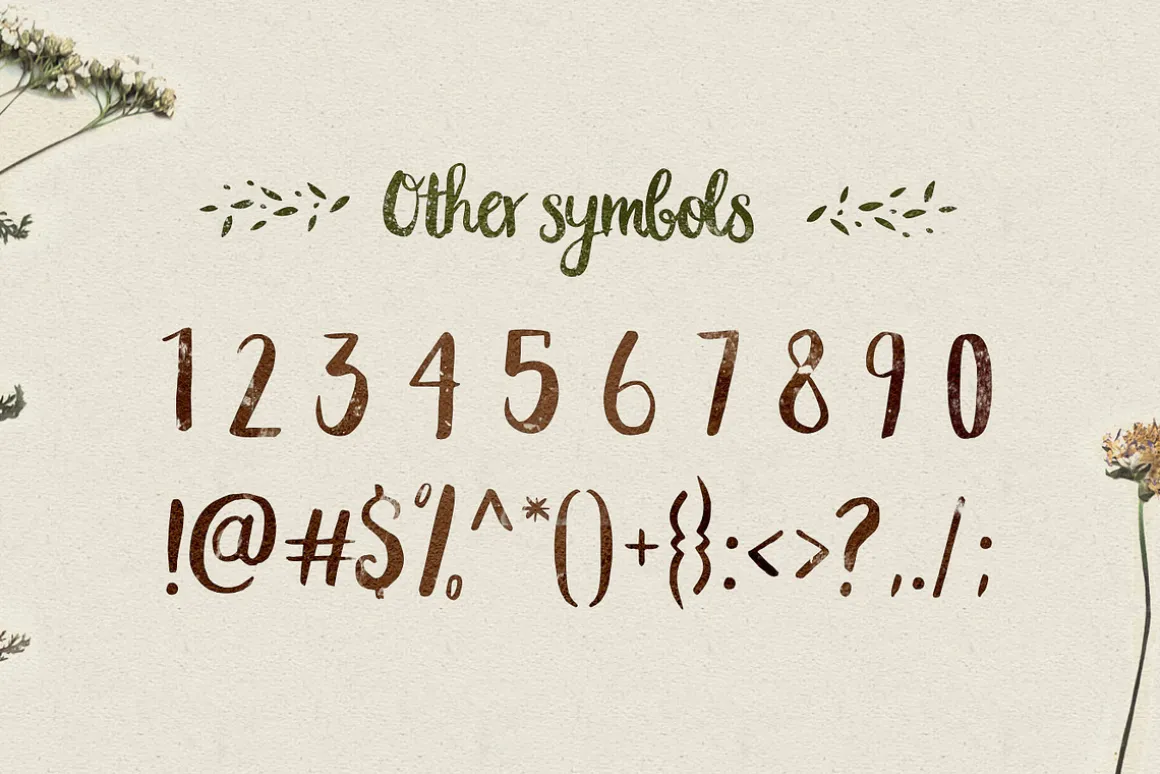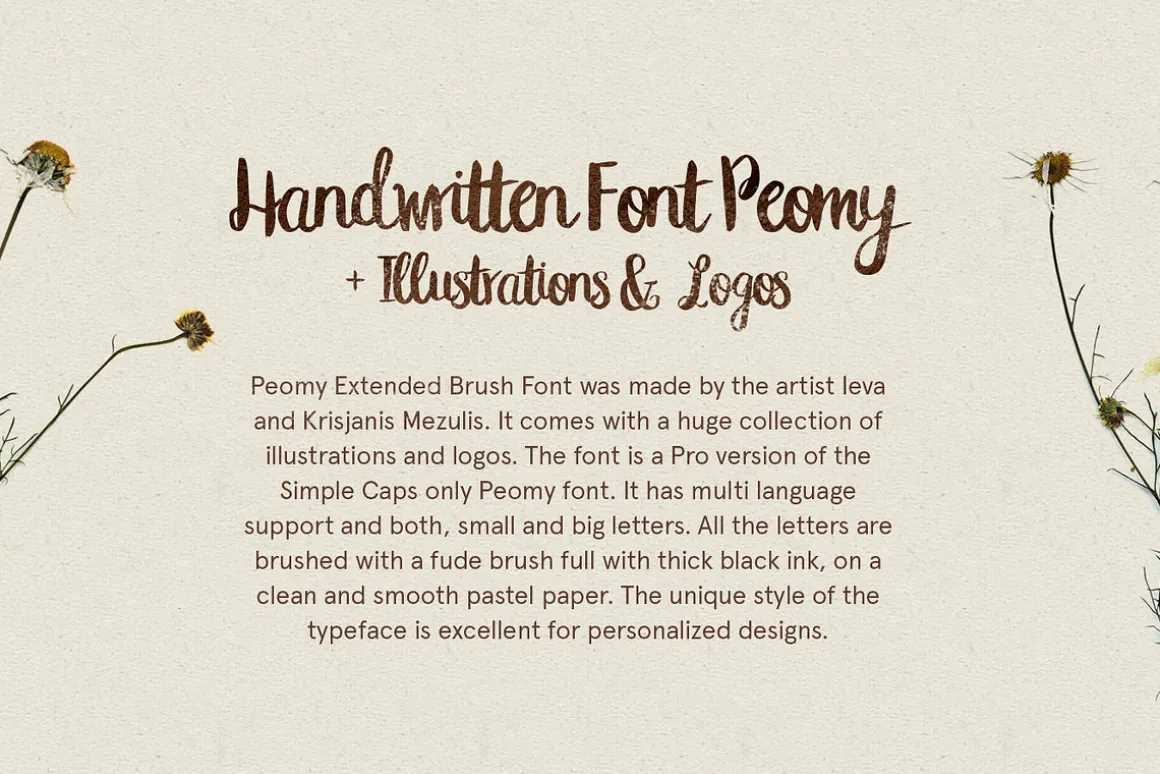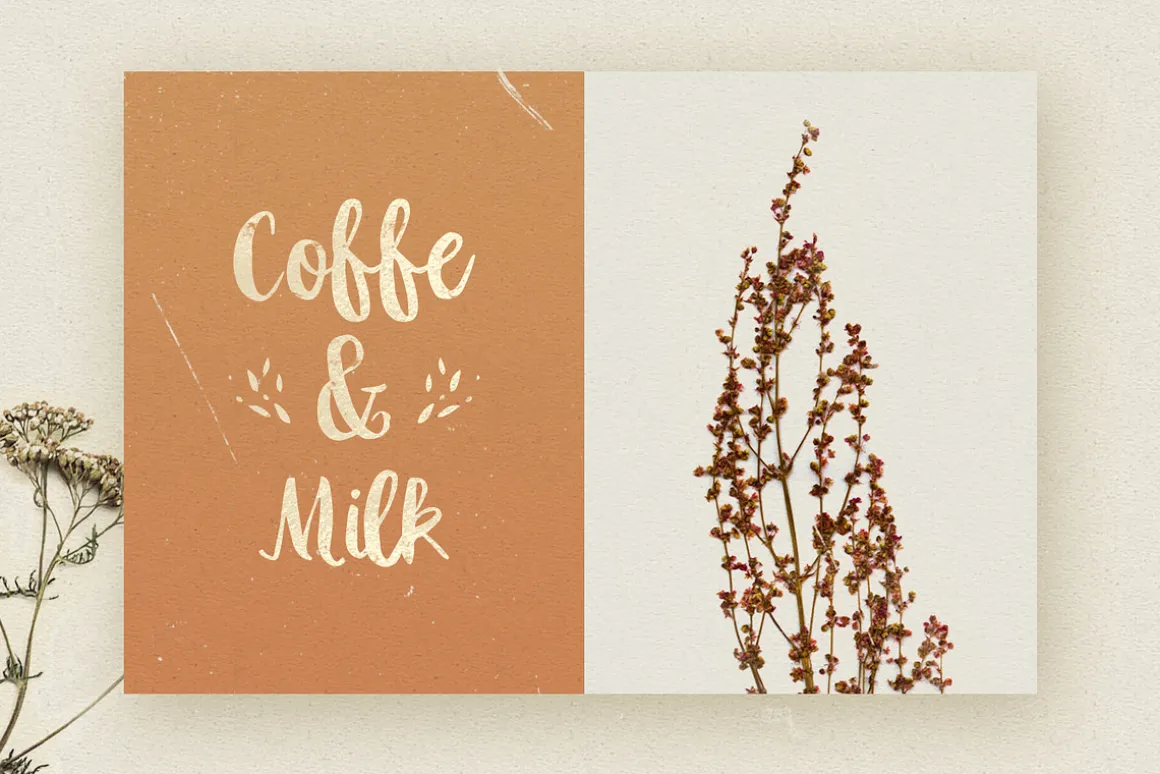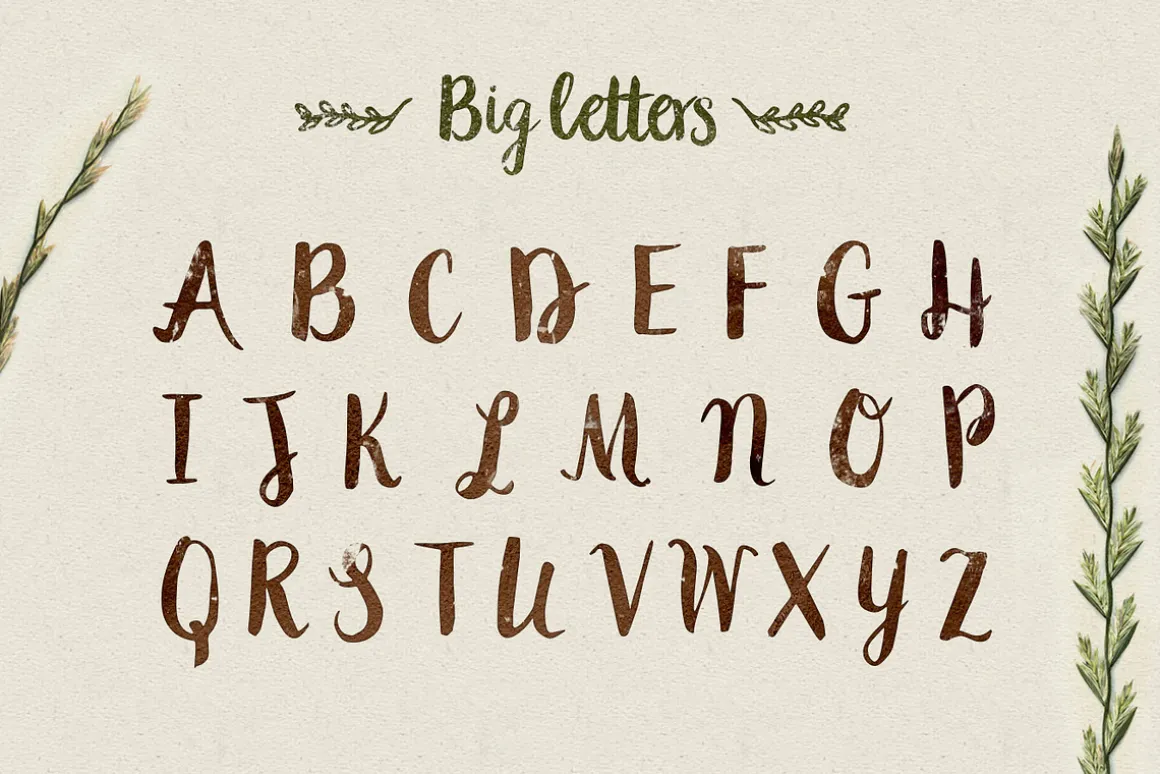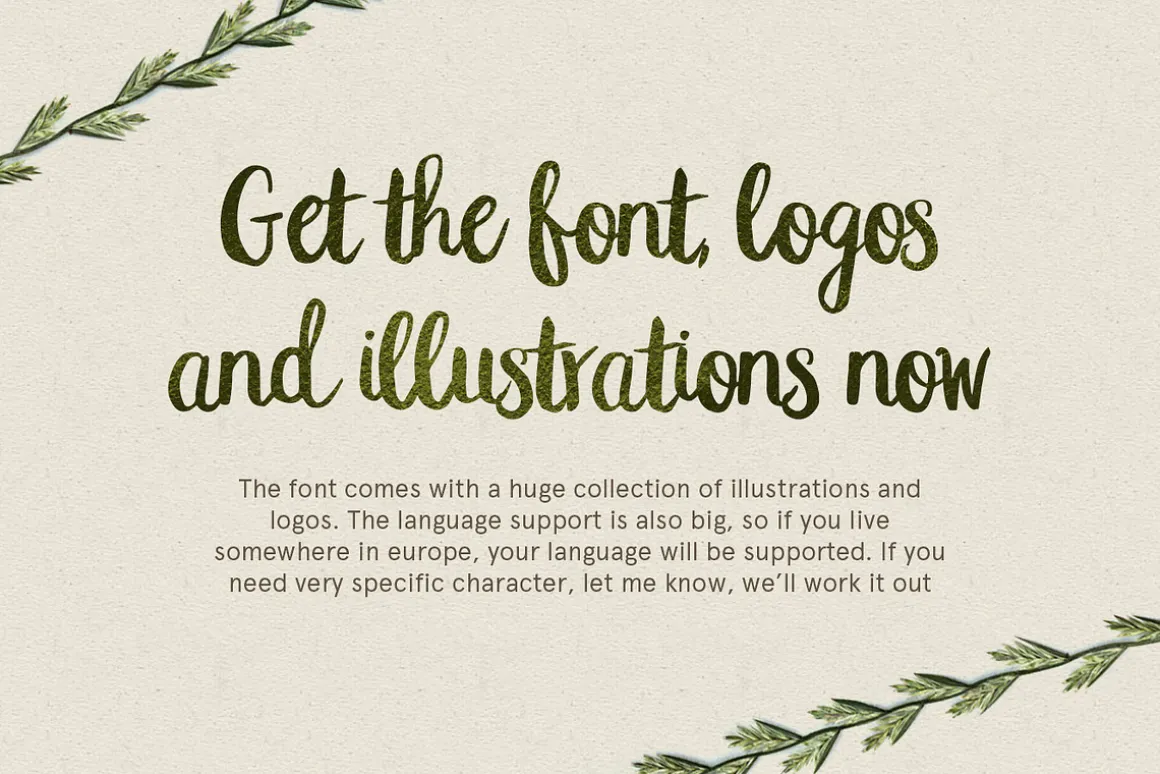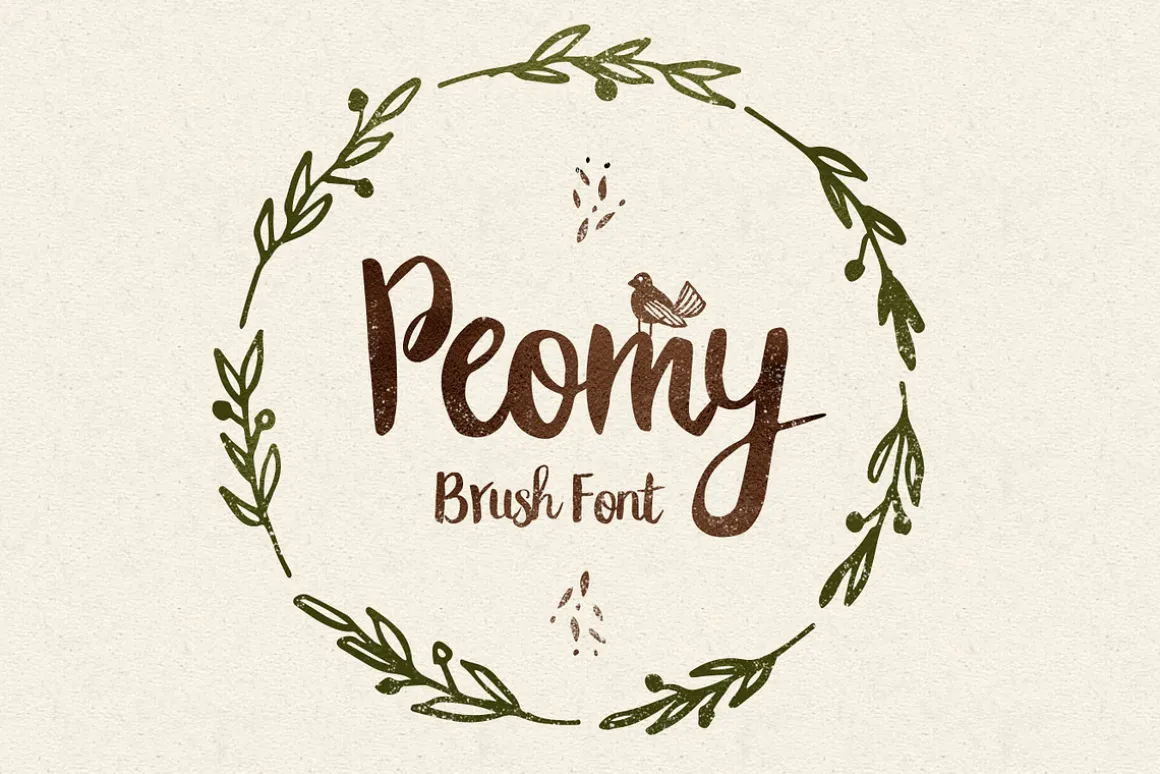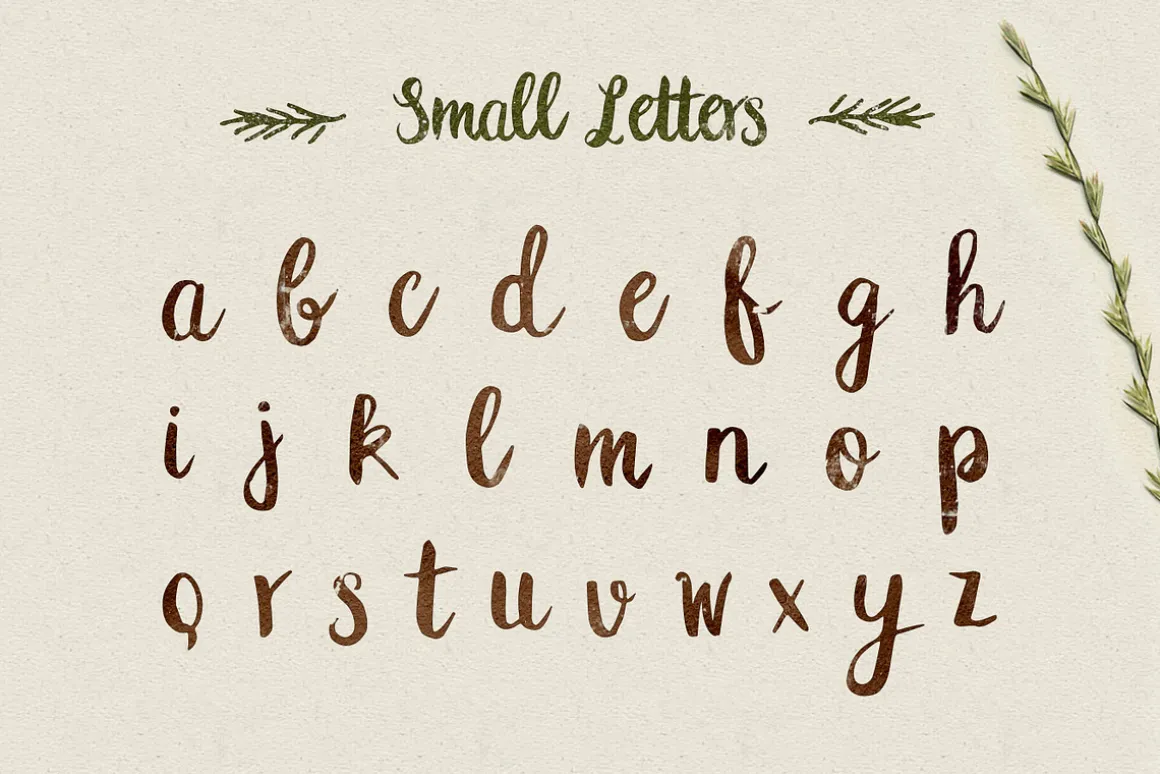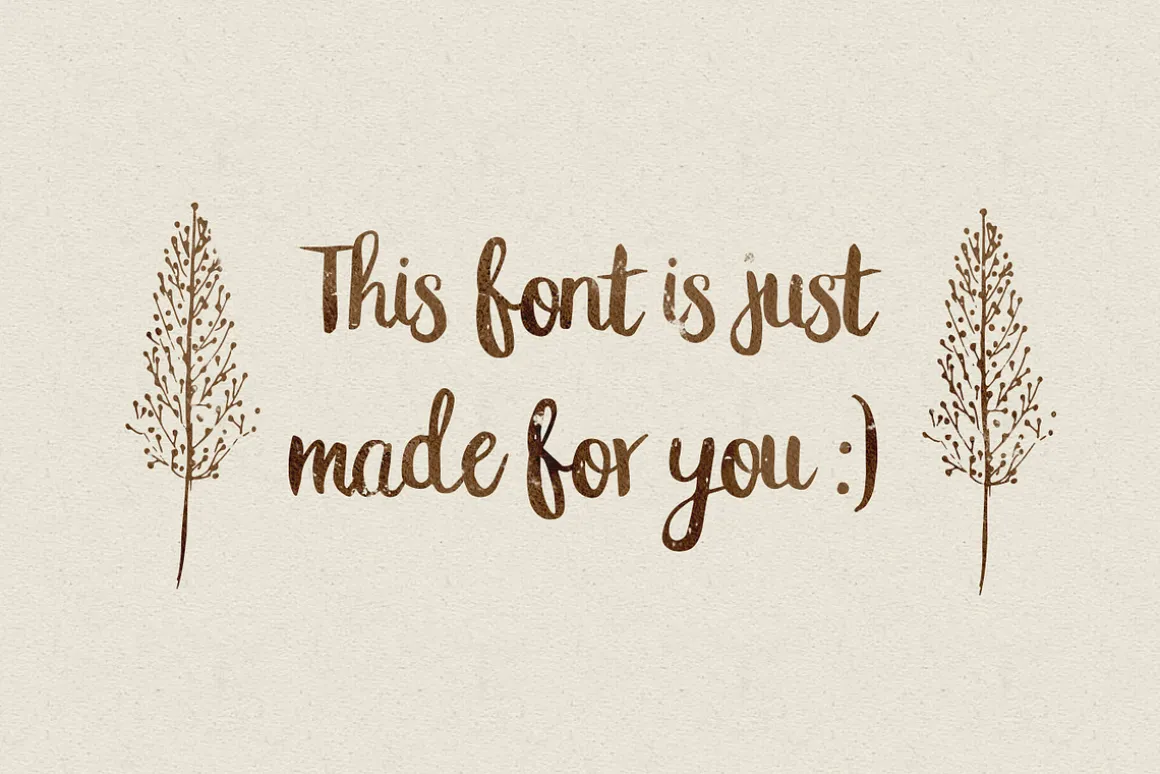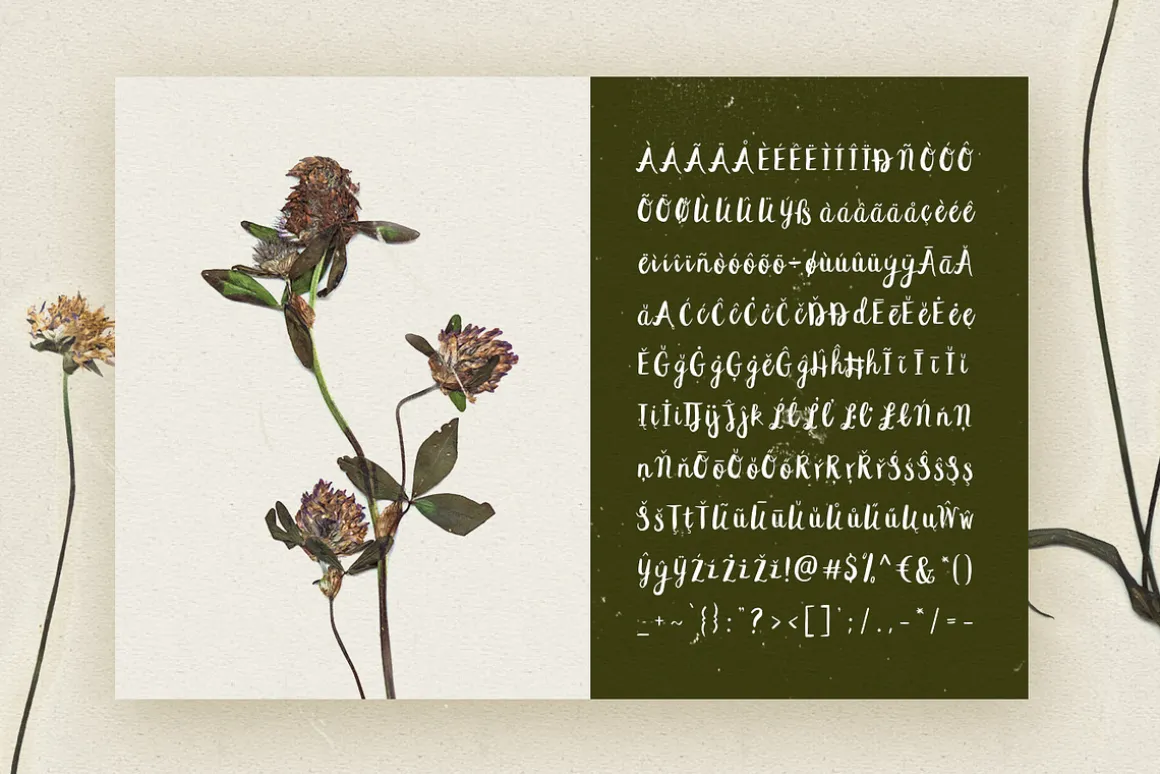
Peomy Extended Font + 150 Illustrations + 24 Logos
Peomy was made by the artist Ieva and Krisjanis Mezulis. Inspired by the lovely nature of forests and fields, after collecting flowers for a personal herbarium. All the letters are brushed with a fude brush full with thick black ink, on a clean and smooth pastel paper.
The font comes with a free huge collection nature inspired doodles, illustrated vectors and pre-designed logos. Best of all everything is super easy to use and edit 🙂
The font features both uppercase and lowercase letters, so you will have a wide range of characters to use in typographic work. It has updated open type features and advanced kerning, combined with multi-language support.
The Peomy Extended pack included 24 editable Logo Templates – so you can create your next logo in just a few minutes with ease. Use than as they are or modify and enhance them as you please. Also you get a whopping 150 Vectorised Illustrations that will suit all your needs, from leaves to cakes, from birds to forks.